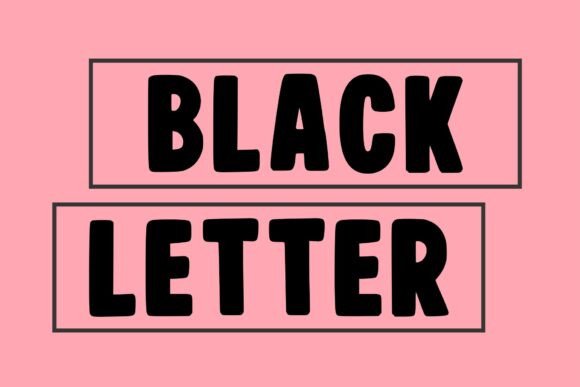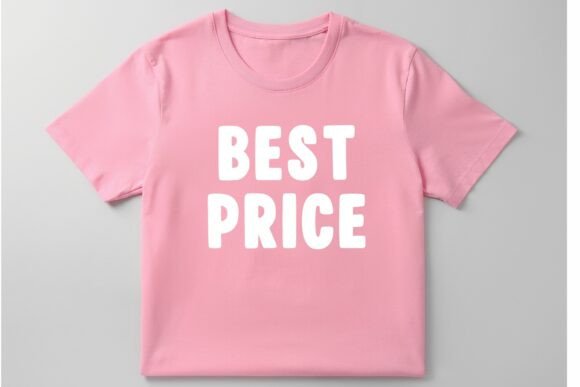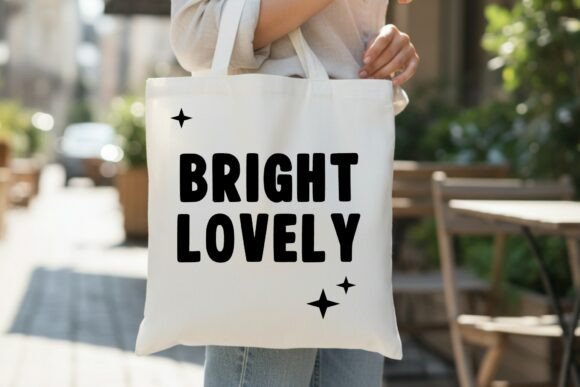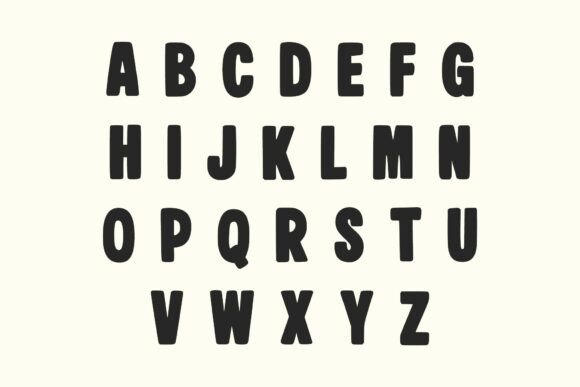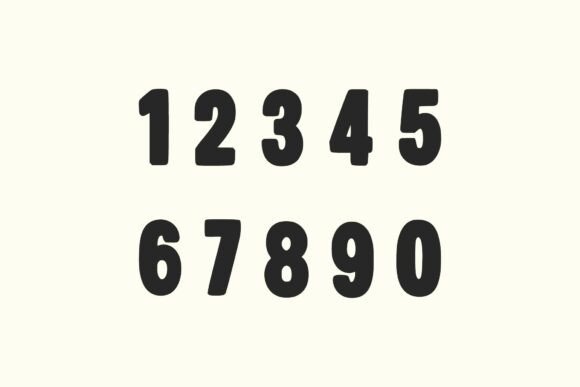
Introduction to Chicken Bold Font
Chicken Bold is a fun and chunky display font with a playful personality.
Featuring thick strokes, soft curves, and a friendly cartoon-style appearance, this font is perfect for eye-catching designs Ideal for childrenโs projects, posters, branding, t-shirts, packaging, social media graphics, and any creative work that needs a cheerful and bold touch.
Key Features of Chicken Bold Font